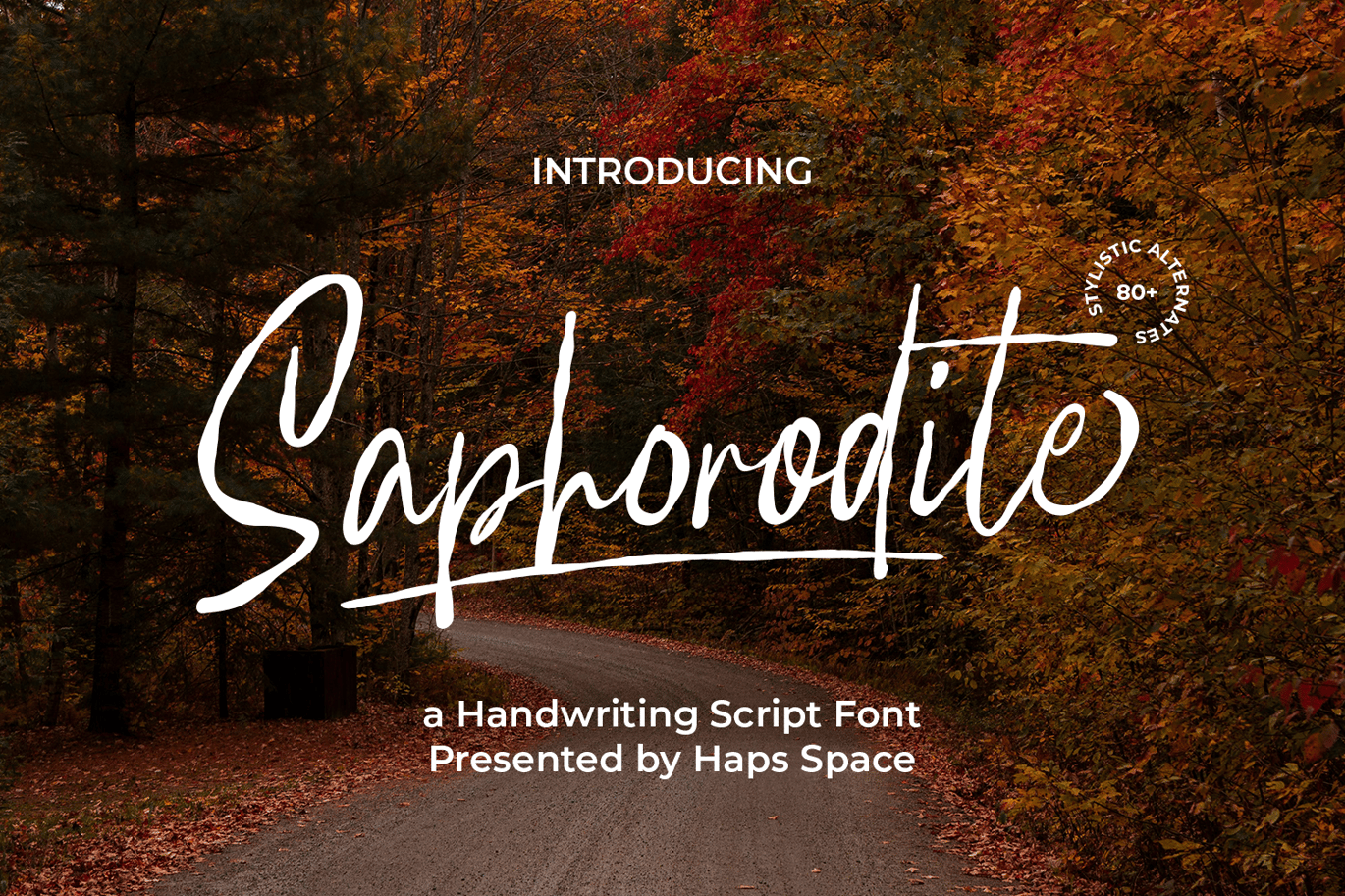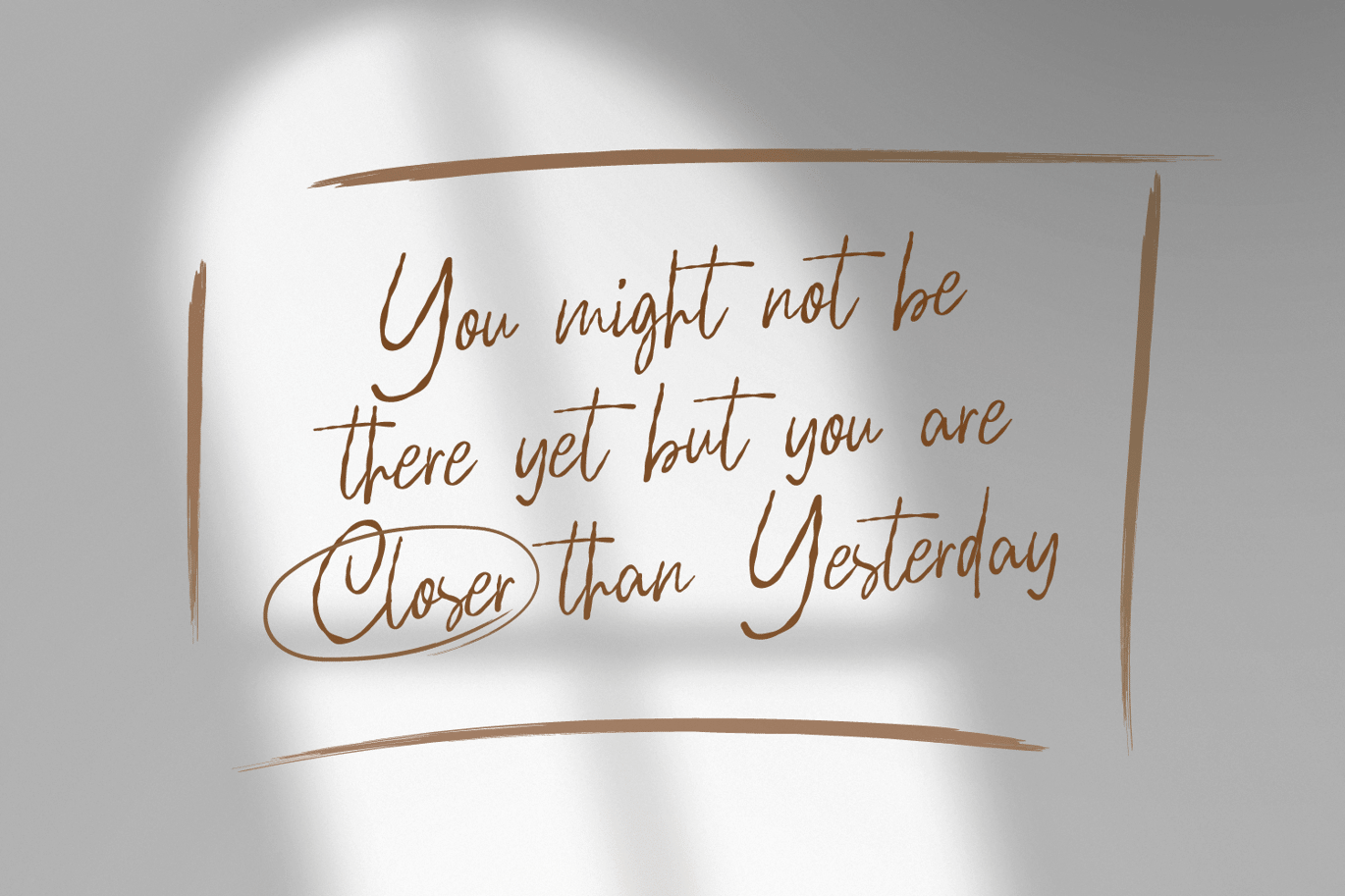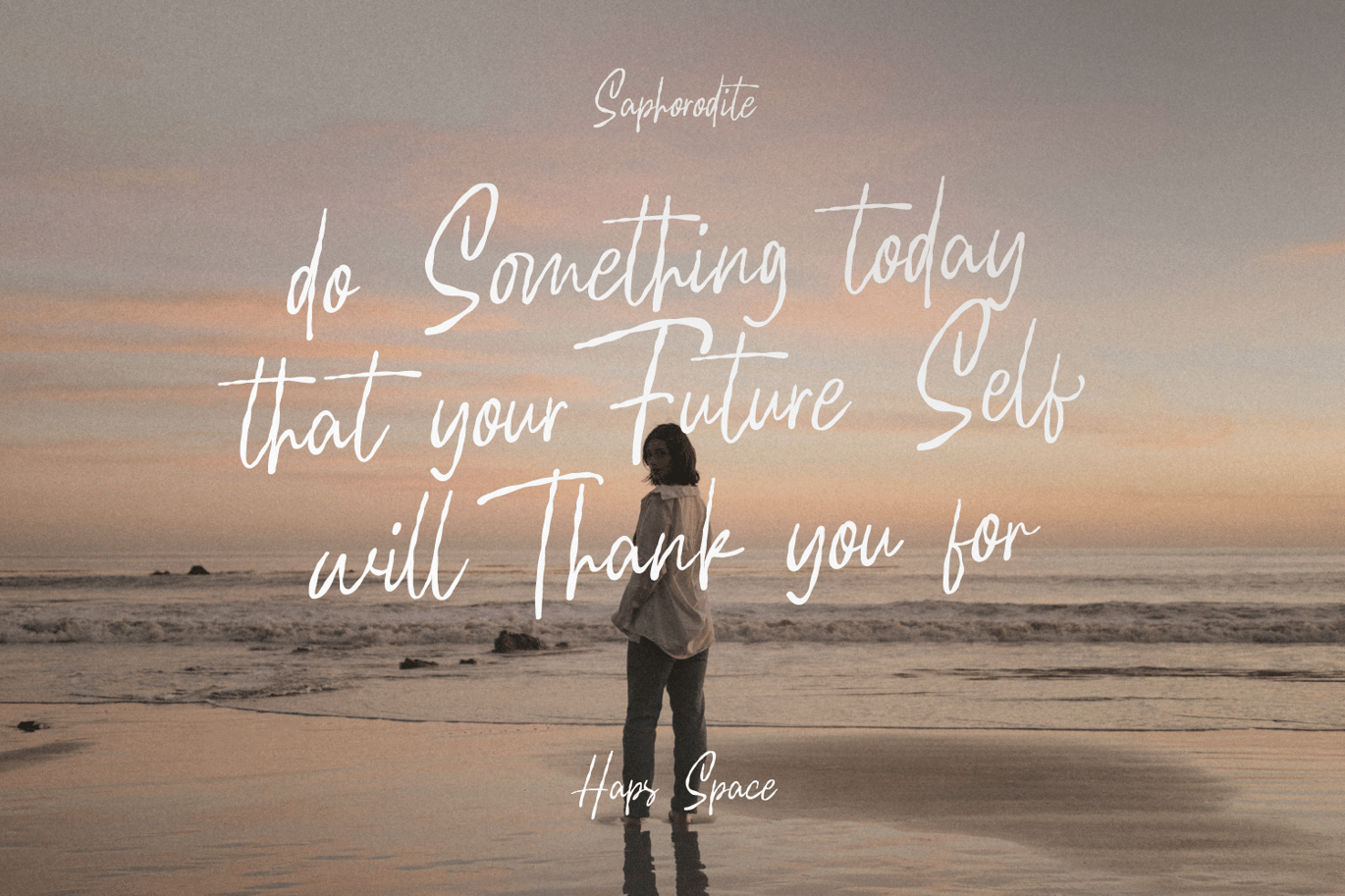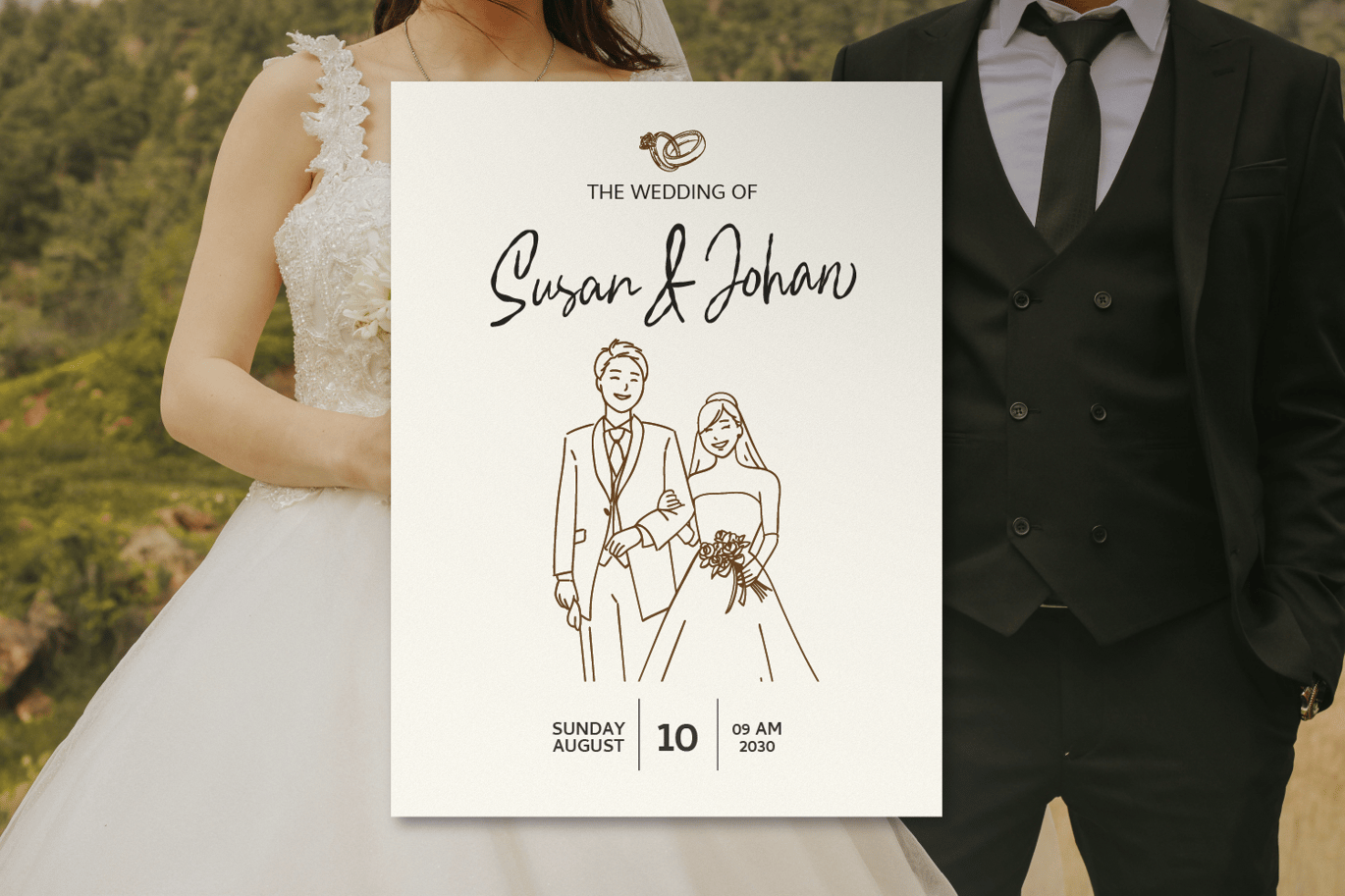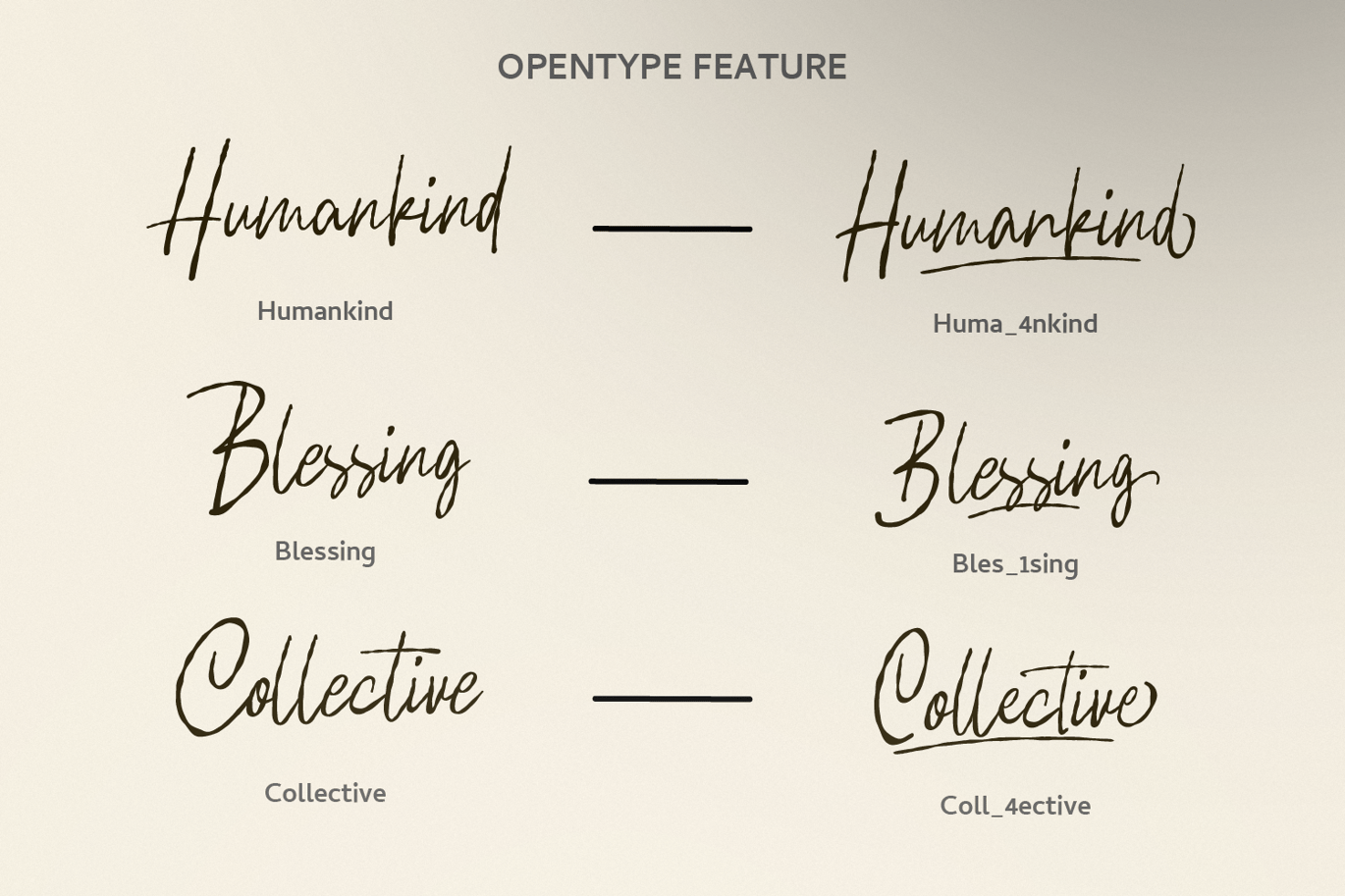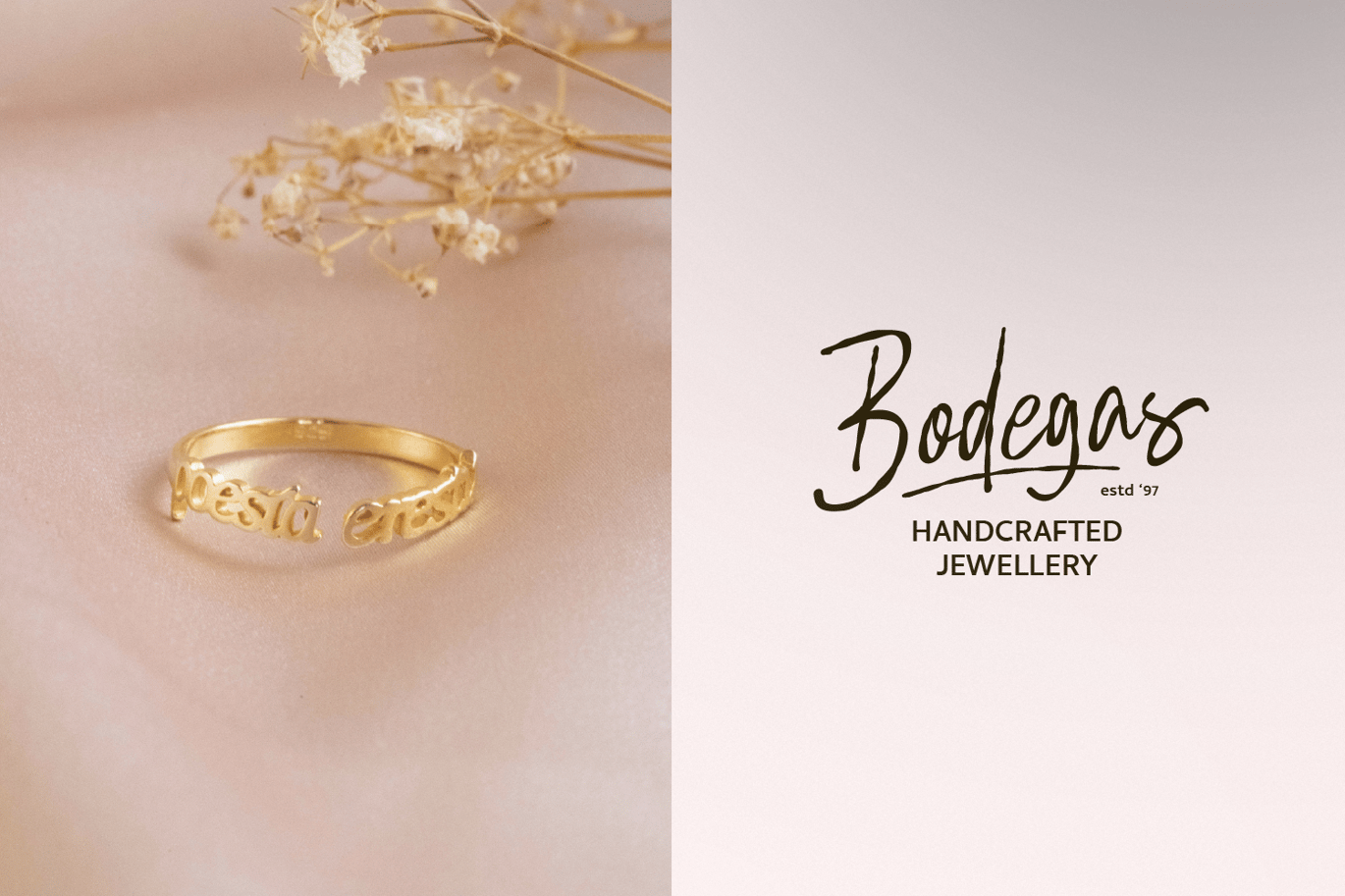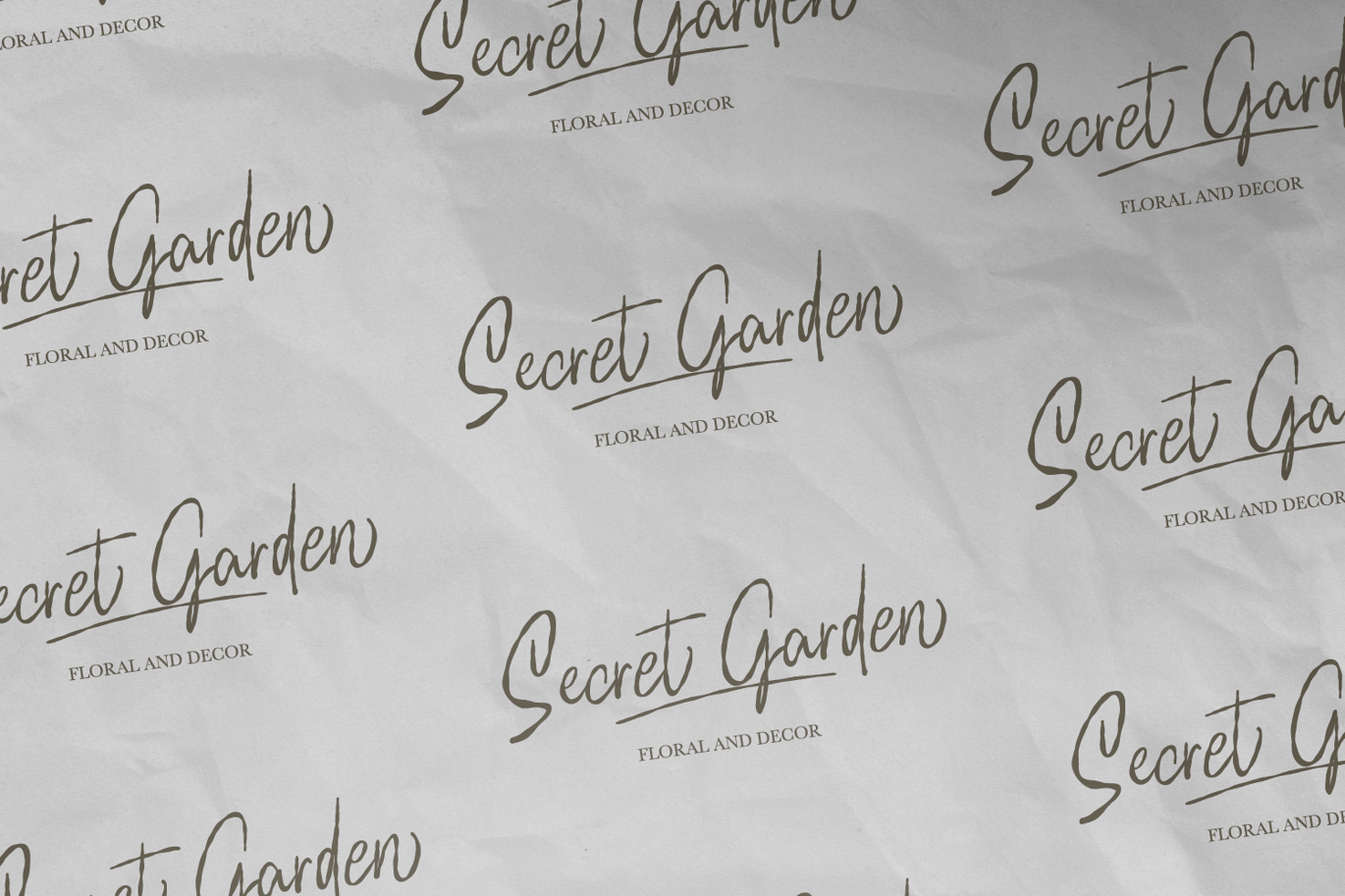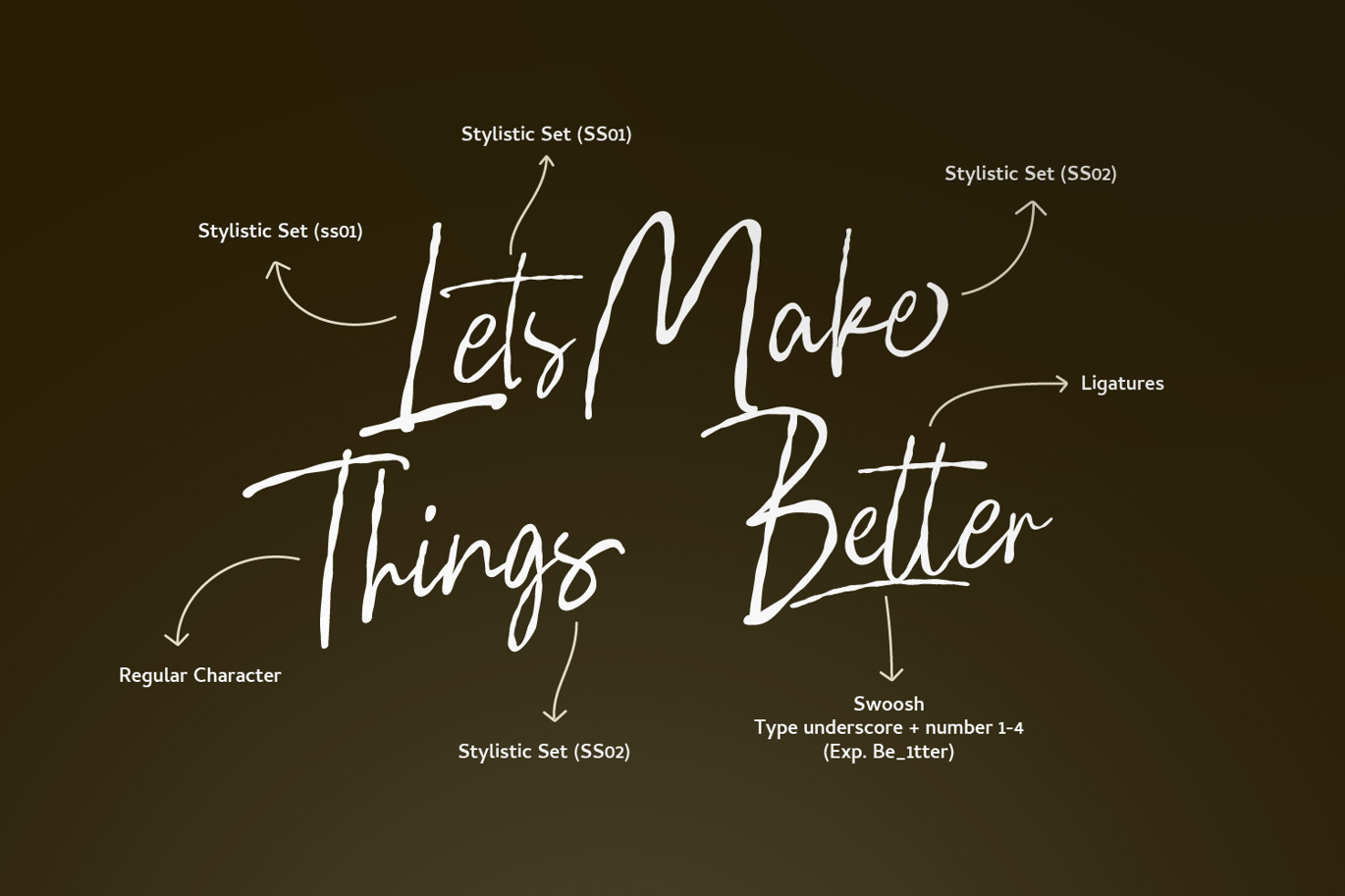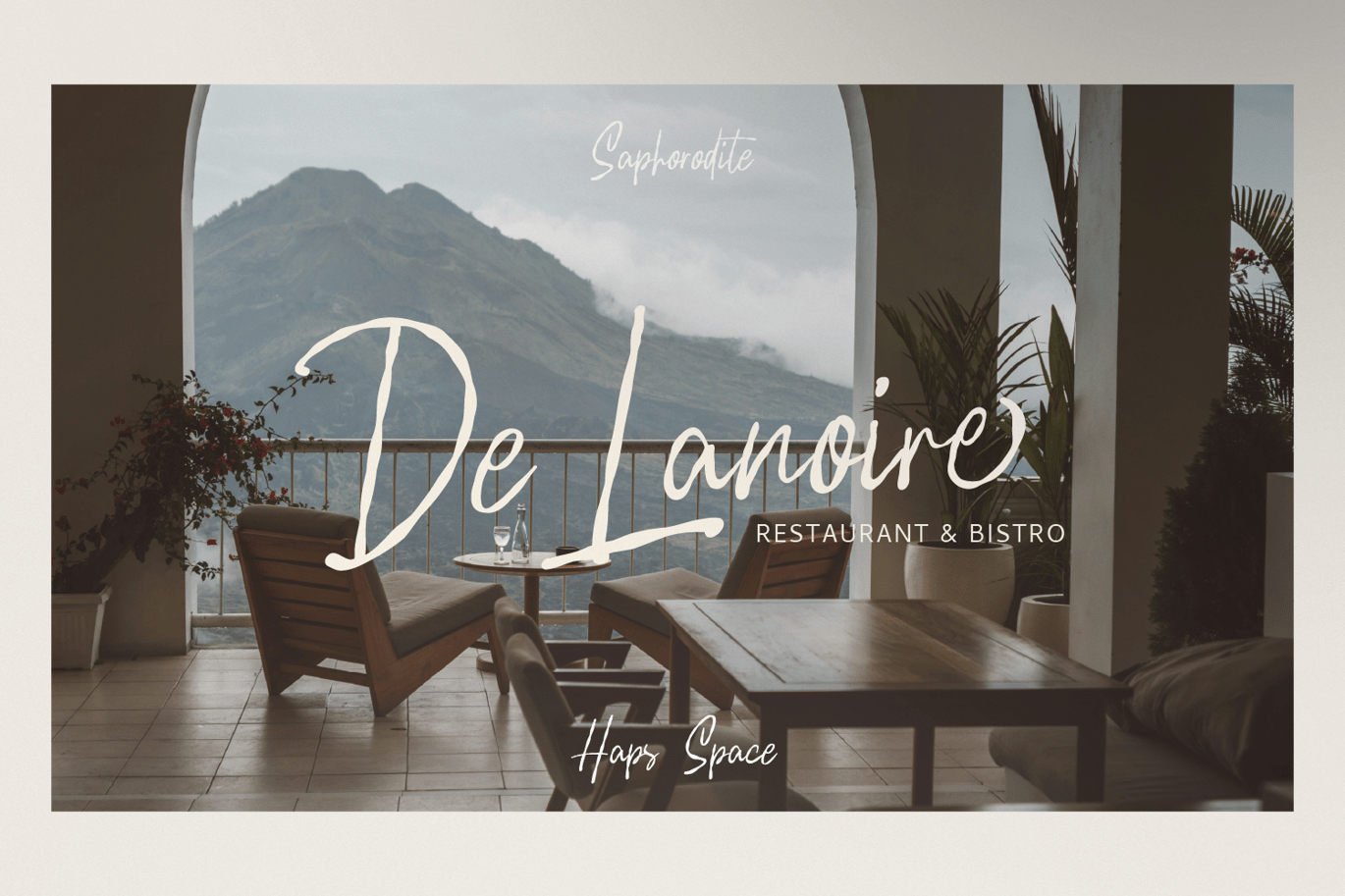
Saphorodite Handwriting Font
Saphorodite Handwriting Font is a Signature Script Font comes with alternatives and ligatures, helps to create stunning Posters, Branding, Tshirt, Social Media Graphics and much more.